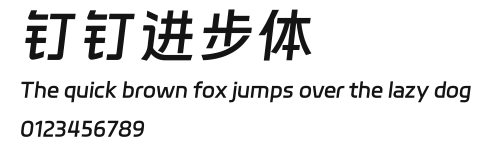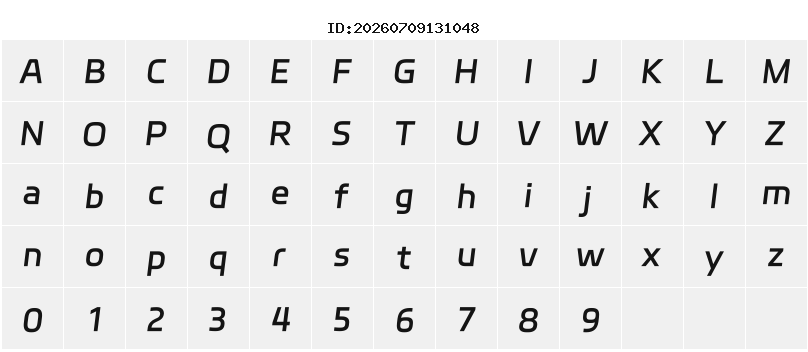
钉钉进步体 Preview
• Font Name: 钉钉进步体
• Font ID: DingTalk JinBuTi Regular Version 1.00.00
• Full Font Name: 钉钉进步体
• Version: Version 1.00.00
• PostScript Name: DingTalk-JinBuTi
• Character Count: 7498
About 钉钉进步体.ttf
钉钉进步体.ttf is a modern, elegant sans-serif font designed for ultimate readability and visual harmony. Perfect for branding, headlines, web design, and print materials.